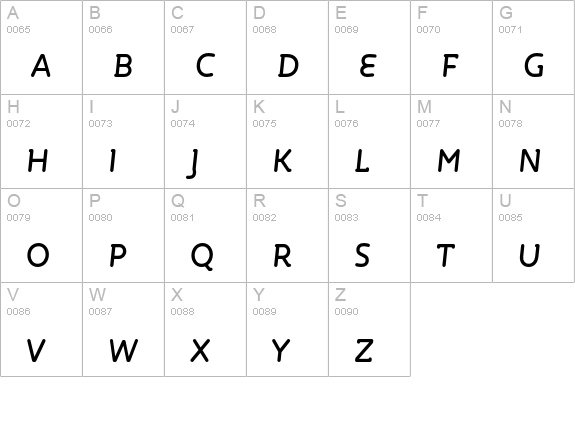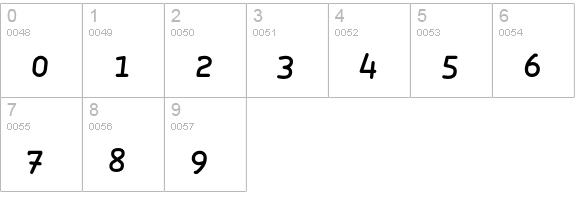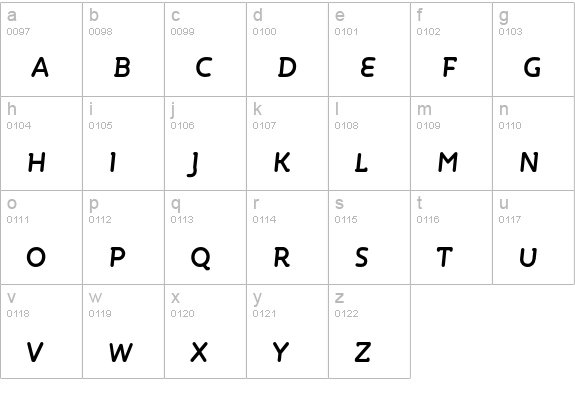
Roice-MediumItalicSC is a stylish and modern font that exudes elegance and sophistication. With its sleek and slender design, this font is perfect for adding a touch of class to any project. The italicized style of Roice-MediumItalicSC gives it a unique flair that sets it apart from other fonts. What makes Roice-MediumItalicSC even more appealing is that it is available for free download at FontsMarket.com. This means that you can easily access this beautiful font and use it in your designs without any cost. Don't miss out on the opportunity to enhance your projects with the stunning Roice-MediumItalicSC font – download it for free today!